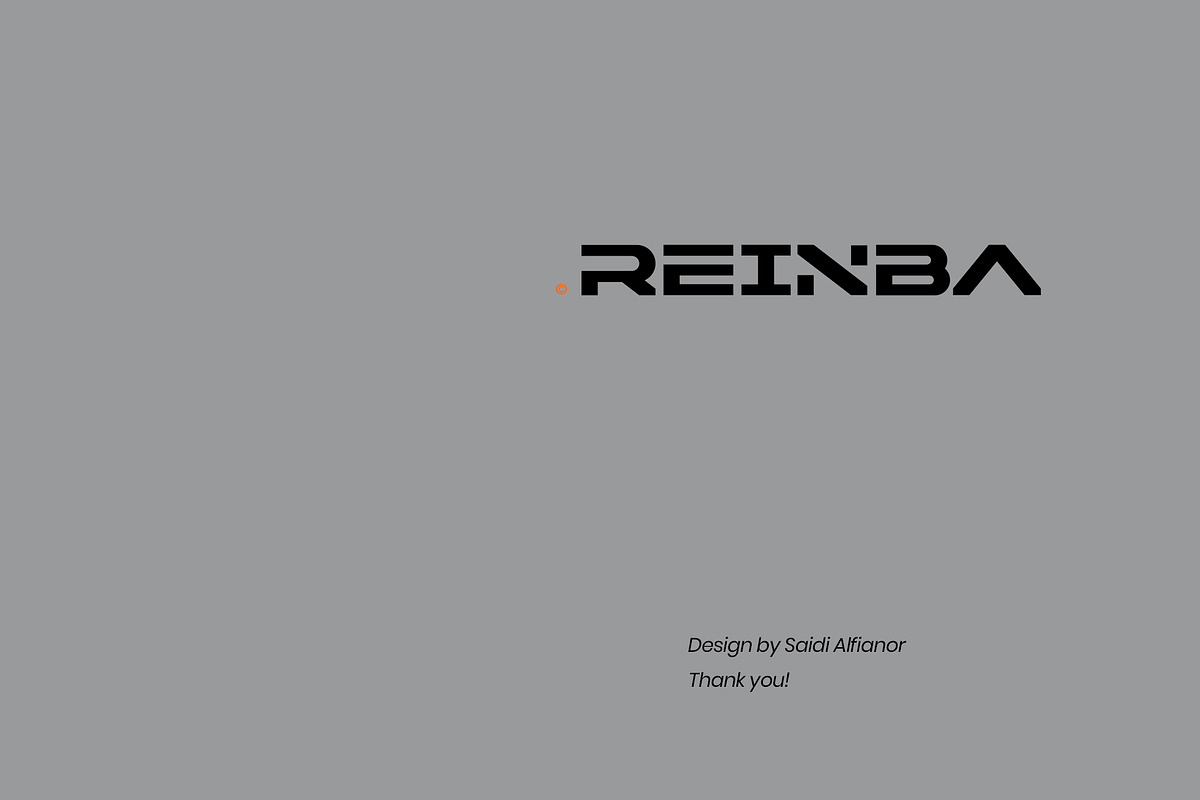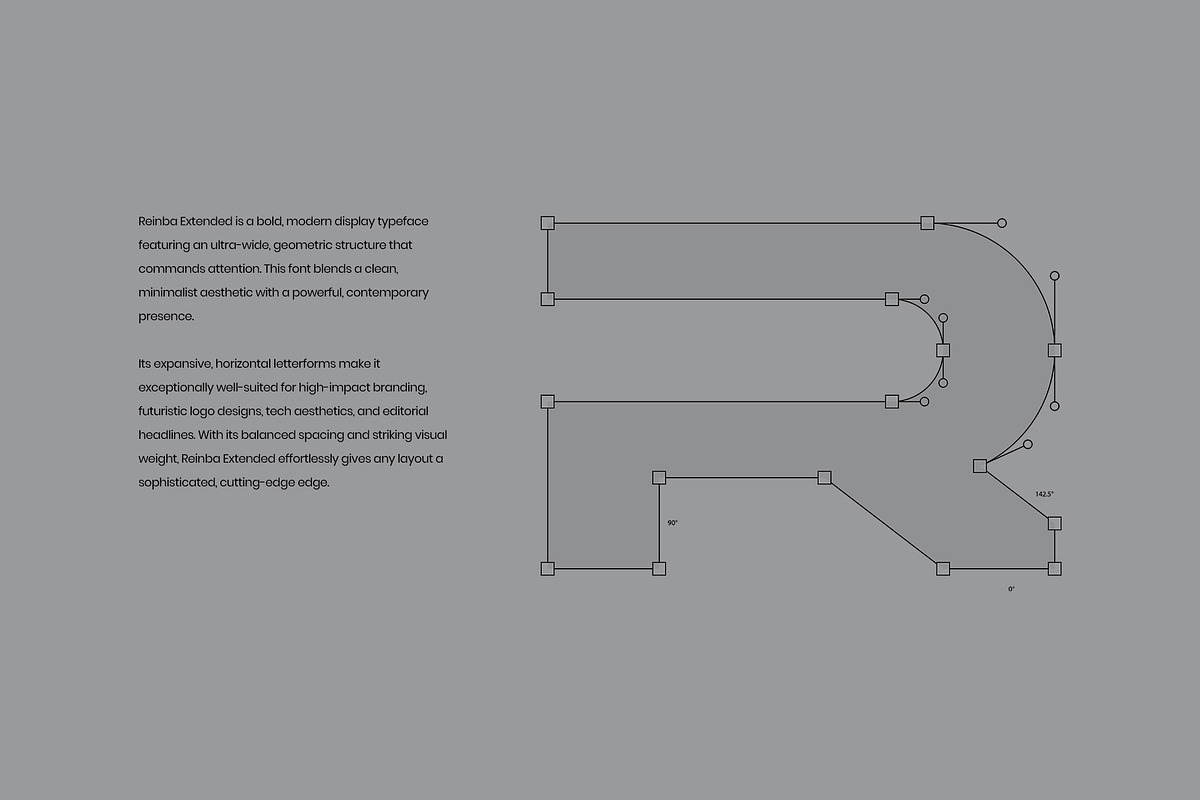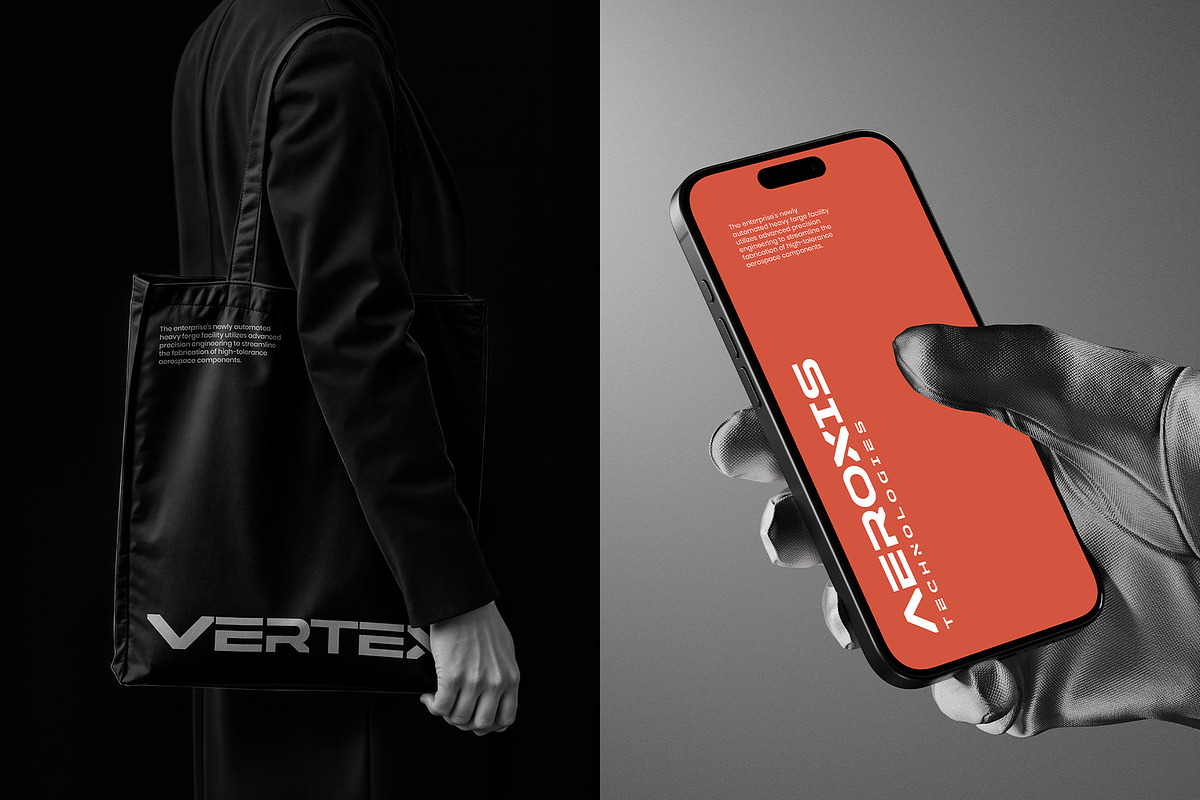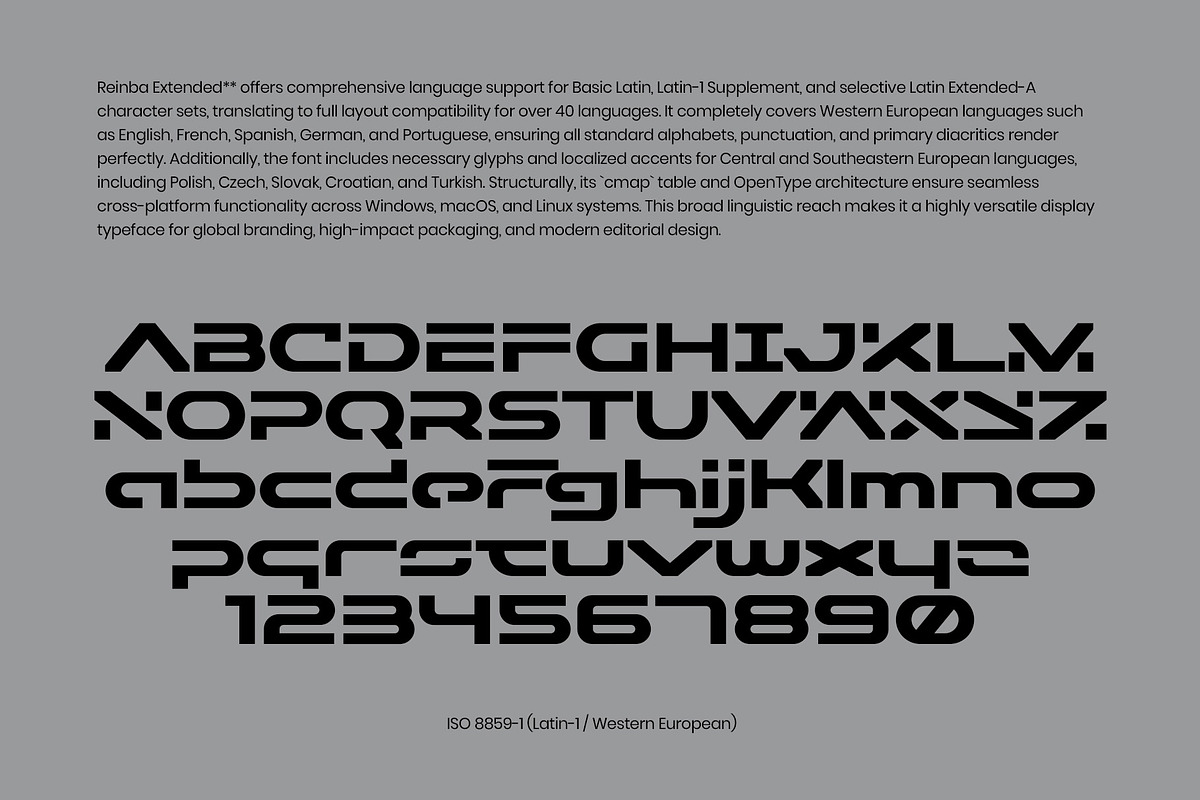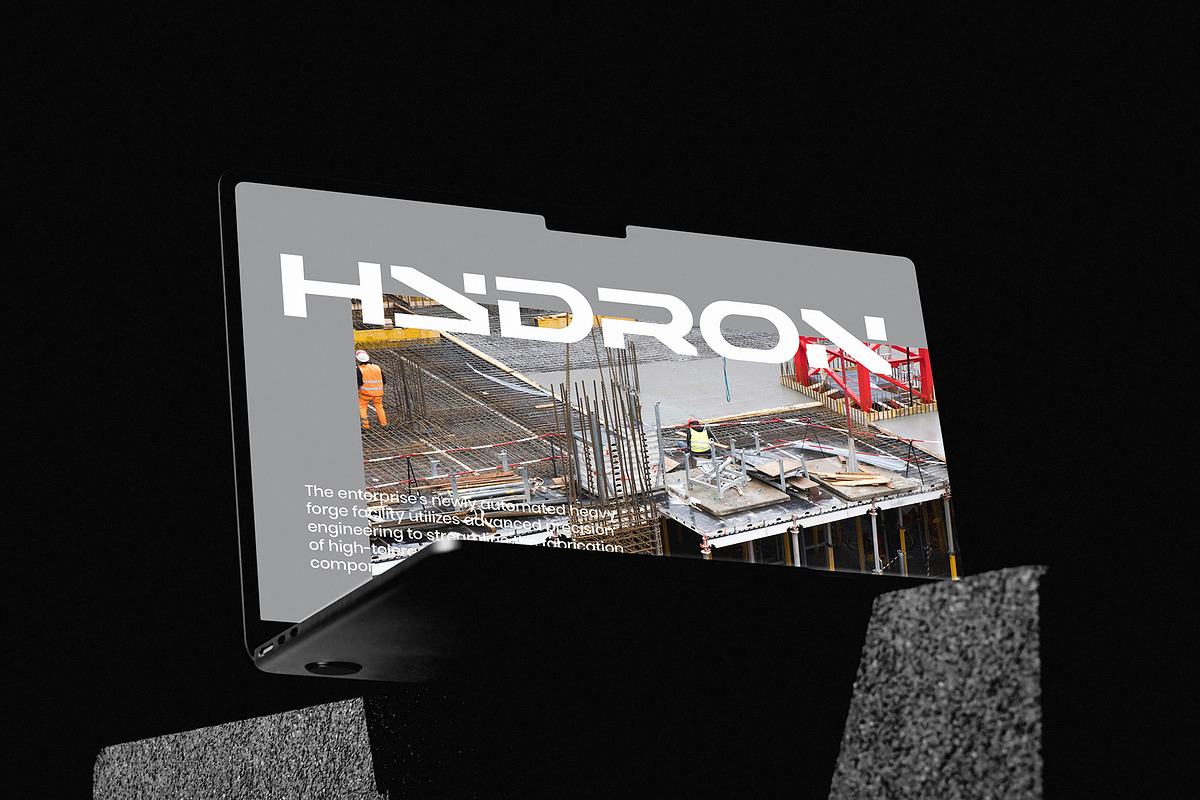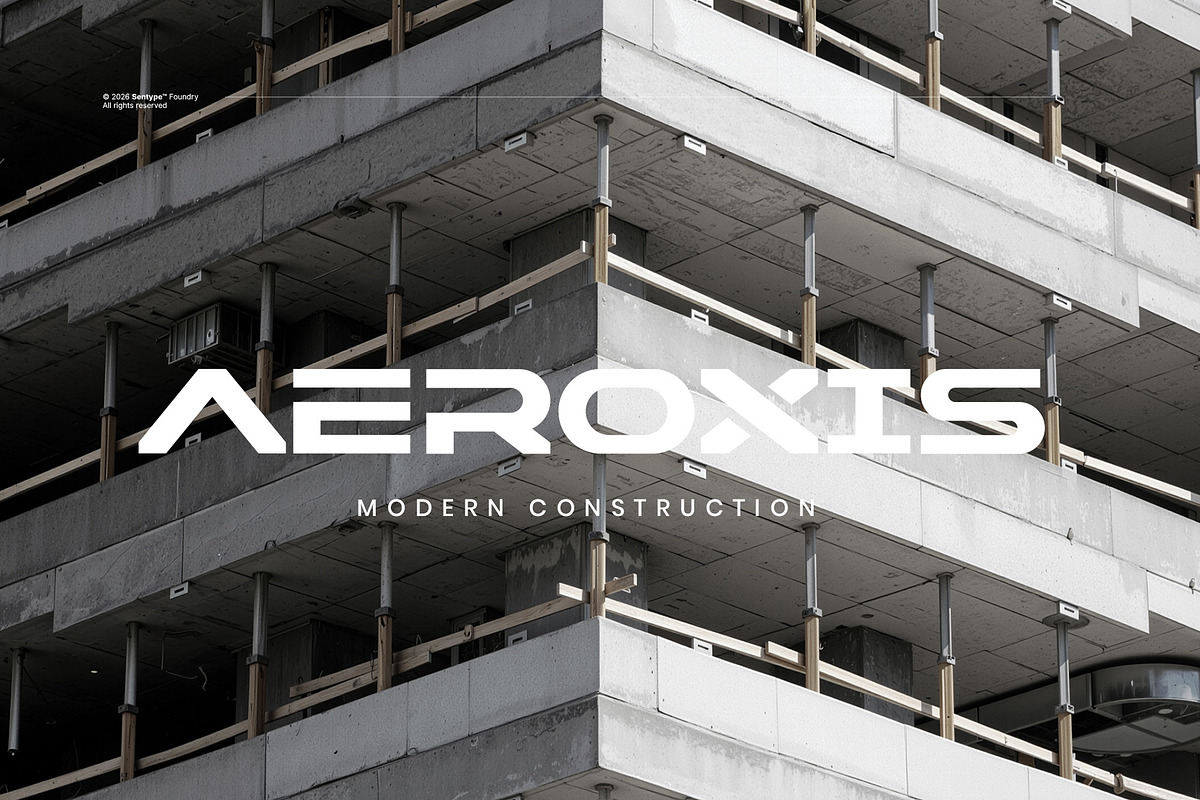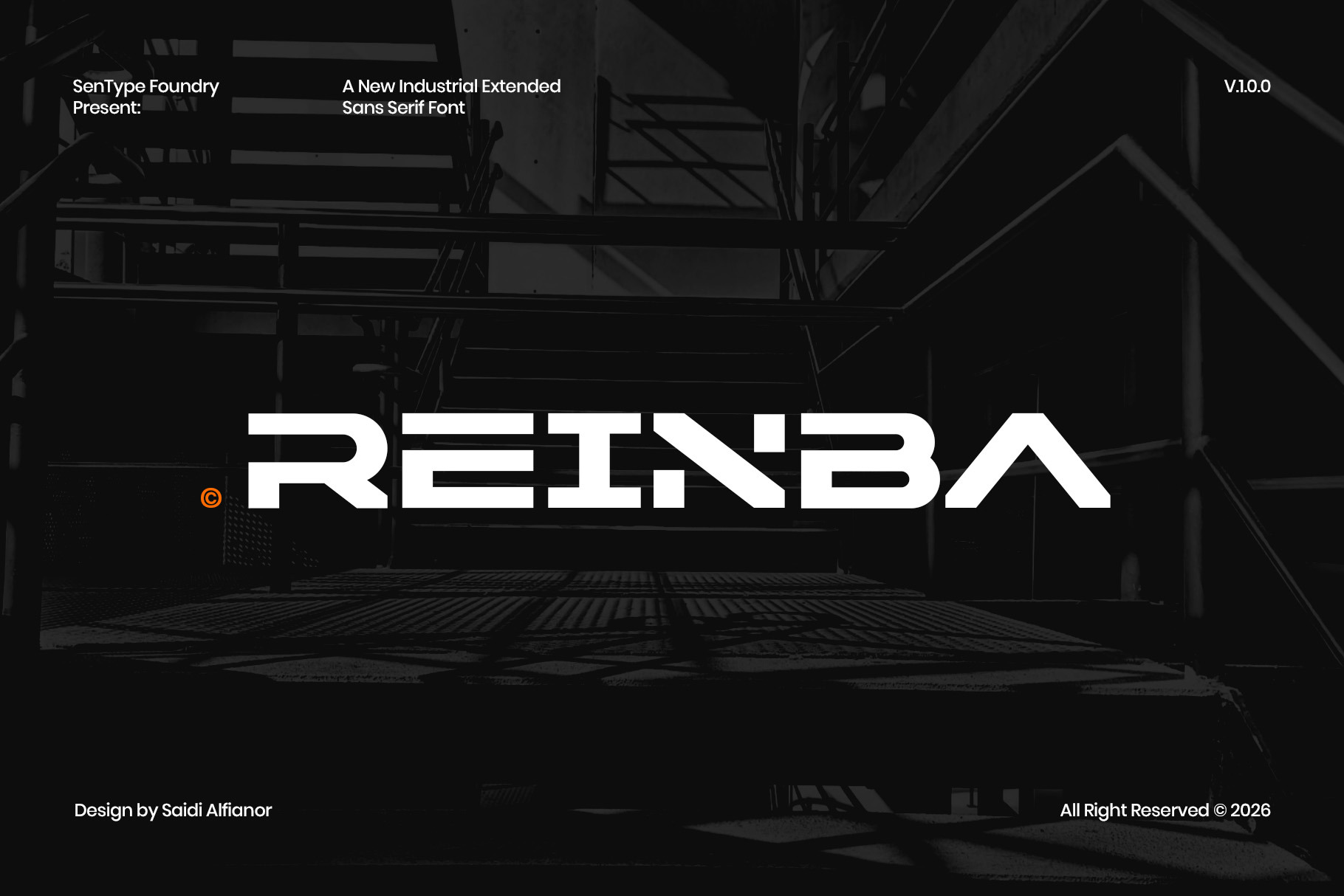
REINBA Extended Sans Serif Font
Reinba Extended is a bold, modern display typeface featuring an ultra-wide, geometric structure that commands attention. Designed by Saidi Alfianor under the Sentype Foundry, this regular-weight font blends a clean, minimalist aesthetic with a powerful, contemporary presence. Its expansive, horizontal letterforms make it exceptionally well-suited for high-impact branding, futuristic logo designs, tech aesthetics, and editorial headlines. With its balanced spacing and striking visual weight, Reinba Extended effortlessly gives any layout a sophisticated, cutting-edge edge.